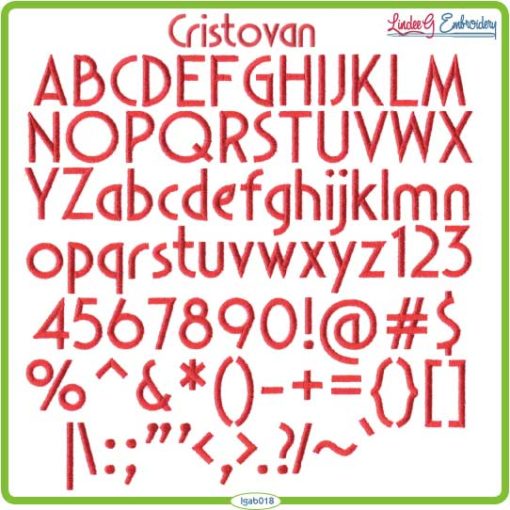
Cristovan is a sans serif machine embroidery font that includes A-Z, a-z, 0-9 and the following punctuation: ~`!@#$%^&*()-+={}[]|:;”‘<>,.?/ (93 total characters).